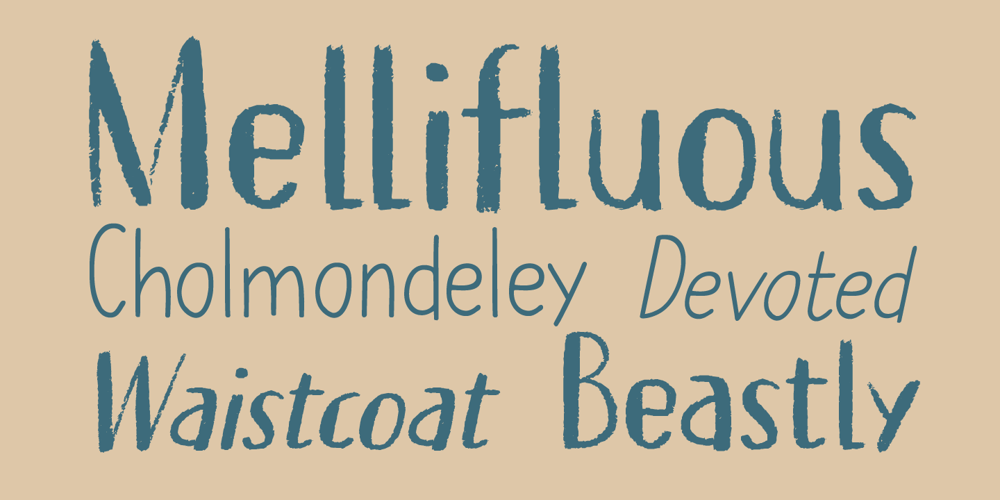
Erstwhile Font Family was designed by David Kerkhoff and published by Hanoded. Erstwhile contains 4 styles and family package options. I like posh English words – the ones you read in books, but actually never use. Erstwhile is such a word; it means ‘former’, but if you use it while talking to someone, it sounds quite odd. Erstwhile is a classy font family – crafted in Holland (with love!).